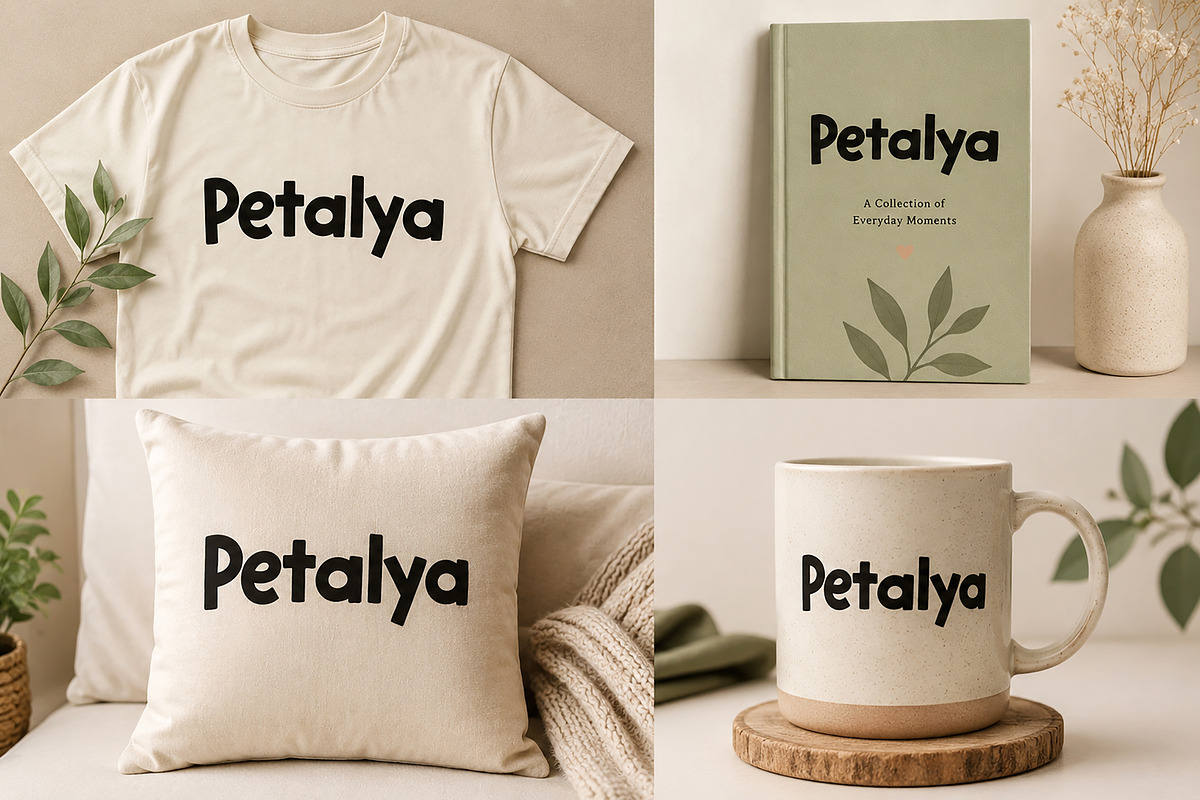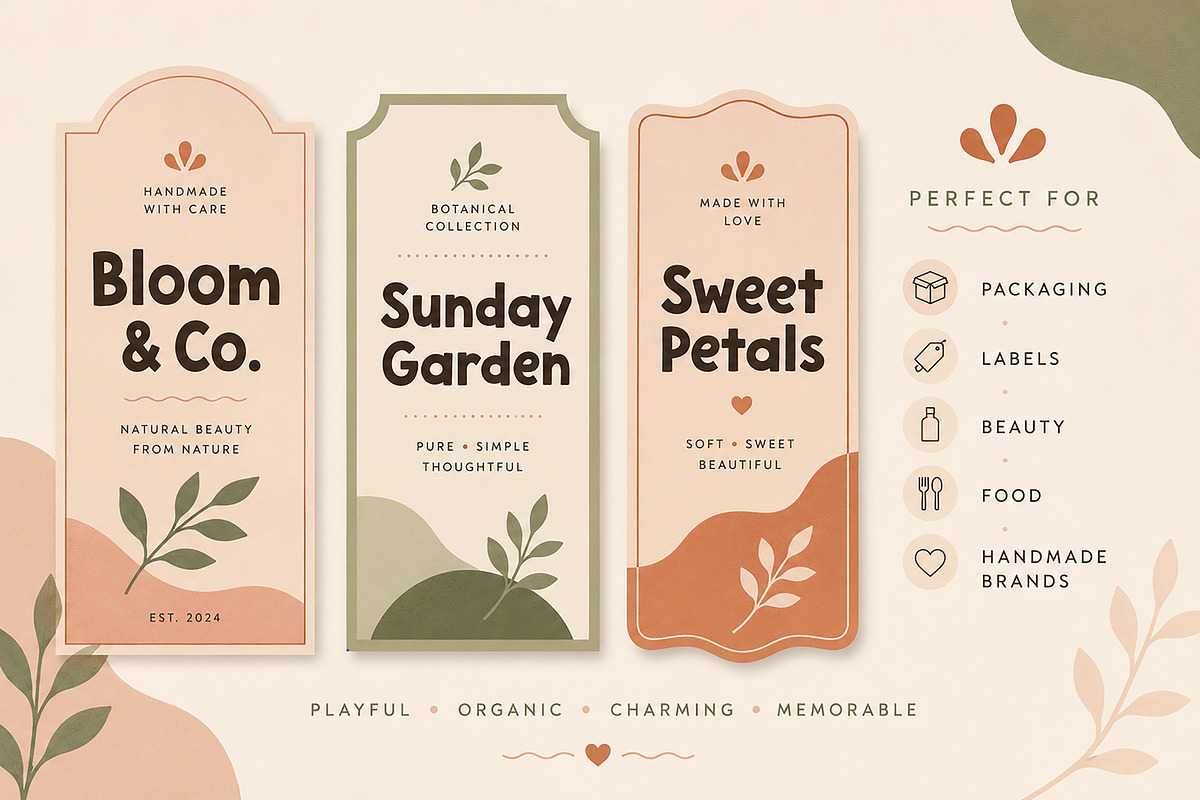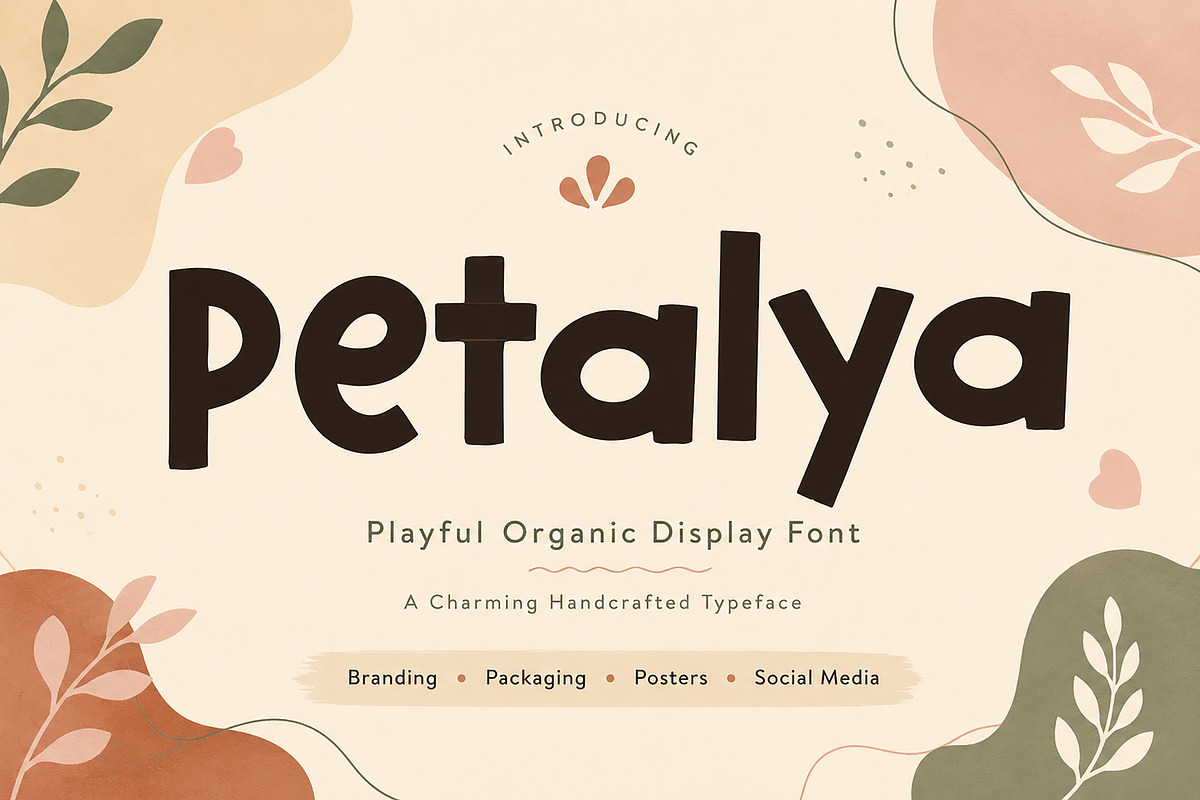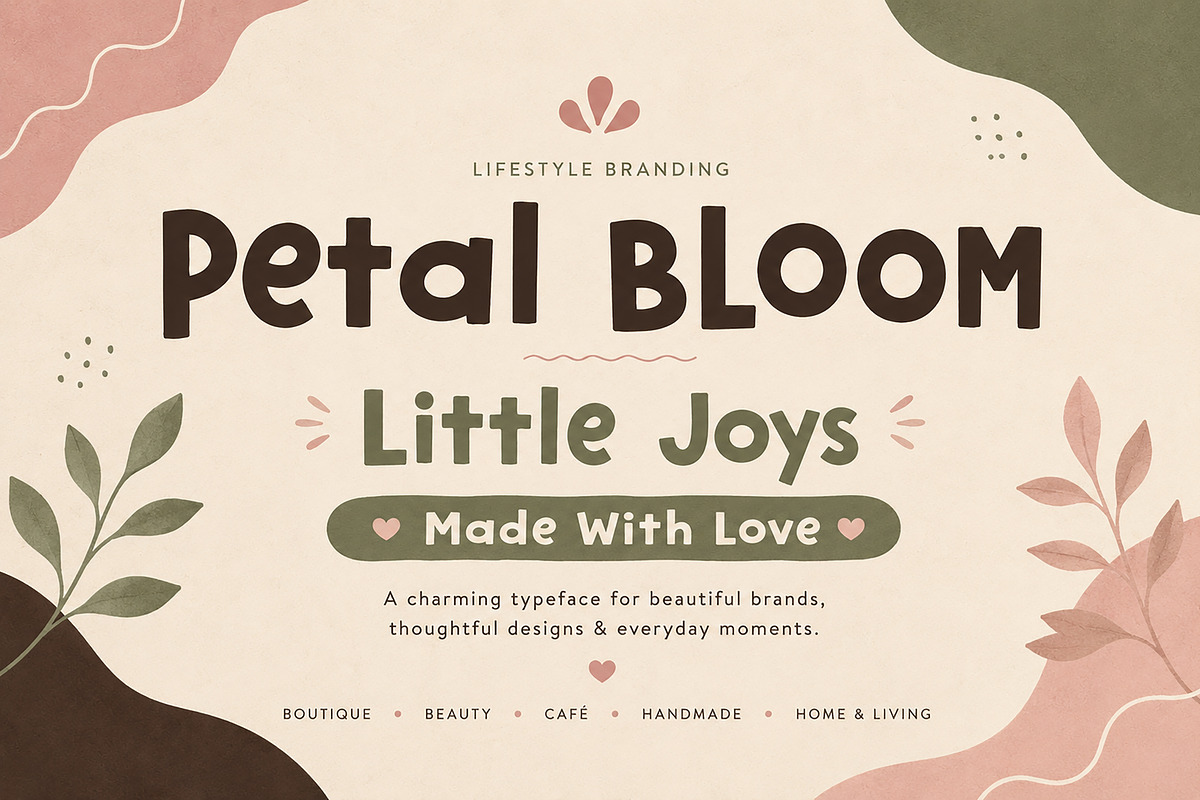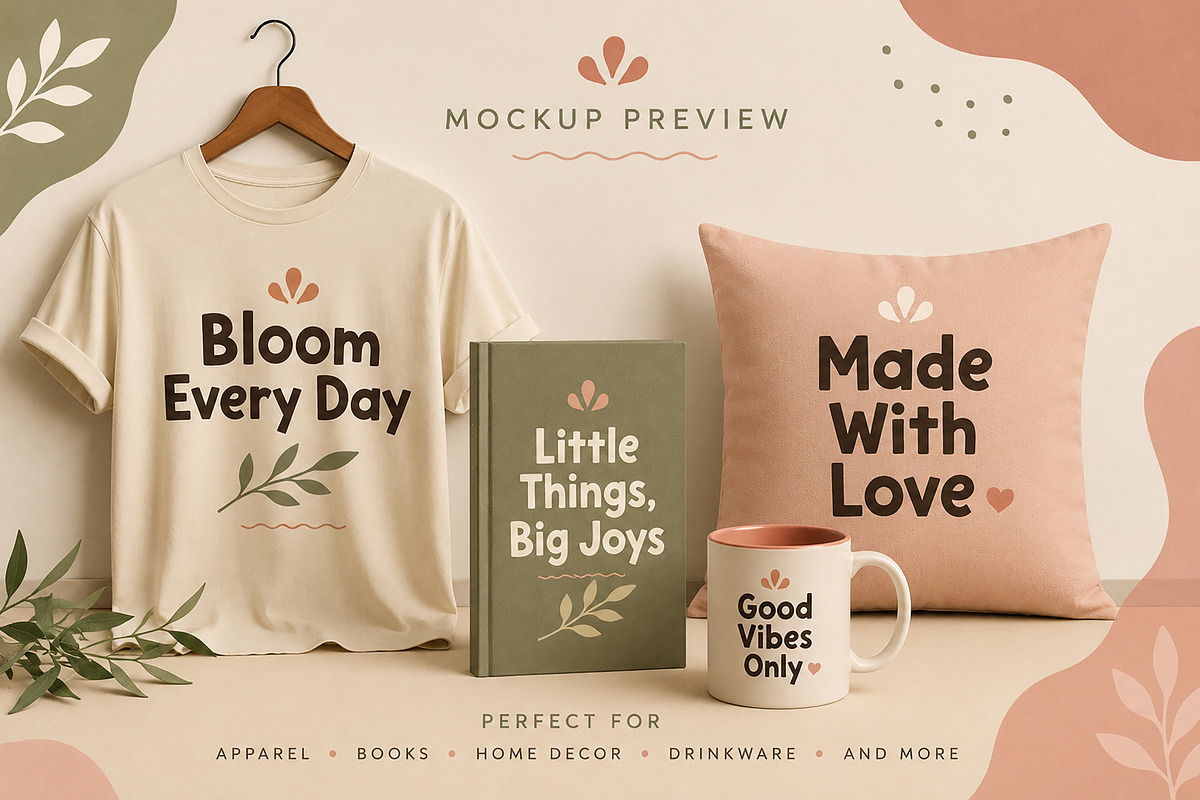
Petalya
Petalya – Playful Organic Display Font
Product Description
Meet Petalya, a playful and charming display font designed with bold shapes, soft curves, and a naturally handcrafted personality. Its slightly irregular letterforms give every word a warm, friendly, and expressive appearance while keeping the typography bold and easy to notice.
Petalya is a great choice for designers looking to create eye-catching logos, product packaging, boutique branding, posters, social media graphics, book covers, apparel, merchandise, labels, café branding, beauty products, handmade goods, and lifestyle designs.
With its organic and cheerful character, Petalya works especially well for projects that need a cute, retro-inspired, creative, and approachable aesthetic. From a simple brand logo to large statement headlines, Petalya adds personality without making your design feel overly complicated.
Branding & Logos • Packaging & Labels • Boutique Brands • Beauty & Cosmetic Branding • Food & Café Branding • Posters & Headlines • Book Covers • T-Shirts & Apparel • Mugs & Merchandise • Home Décor • Social Media • Handmade Products • Invitations • Creative Editorial Designs
Playful organic display style
Bold and expressive letterforms
Soft, quirky handcrafted character
Perfect for large headlines and branding
Great for both print and digital projects
Ideal for packaging and merchandise
Easy to use in creative design projects
Unique personality for memorable visual identities
Give your next creative project a warm, playful touch with Petalya.